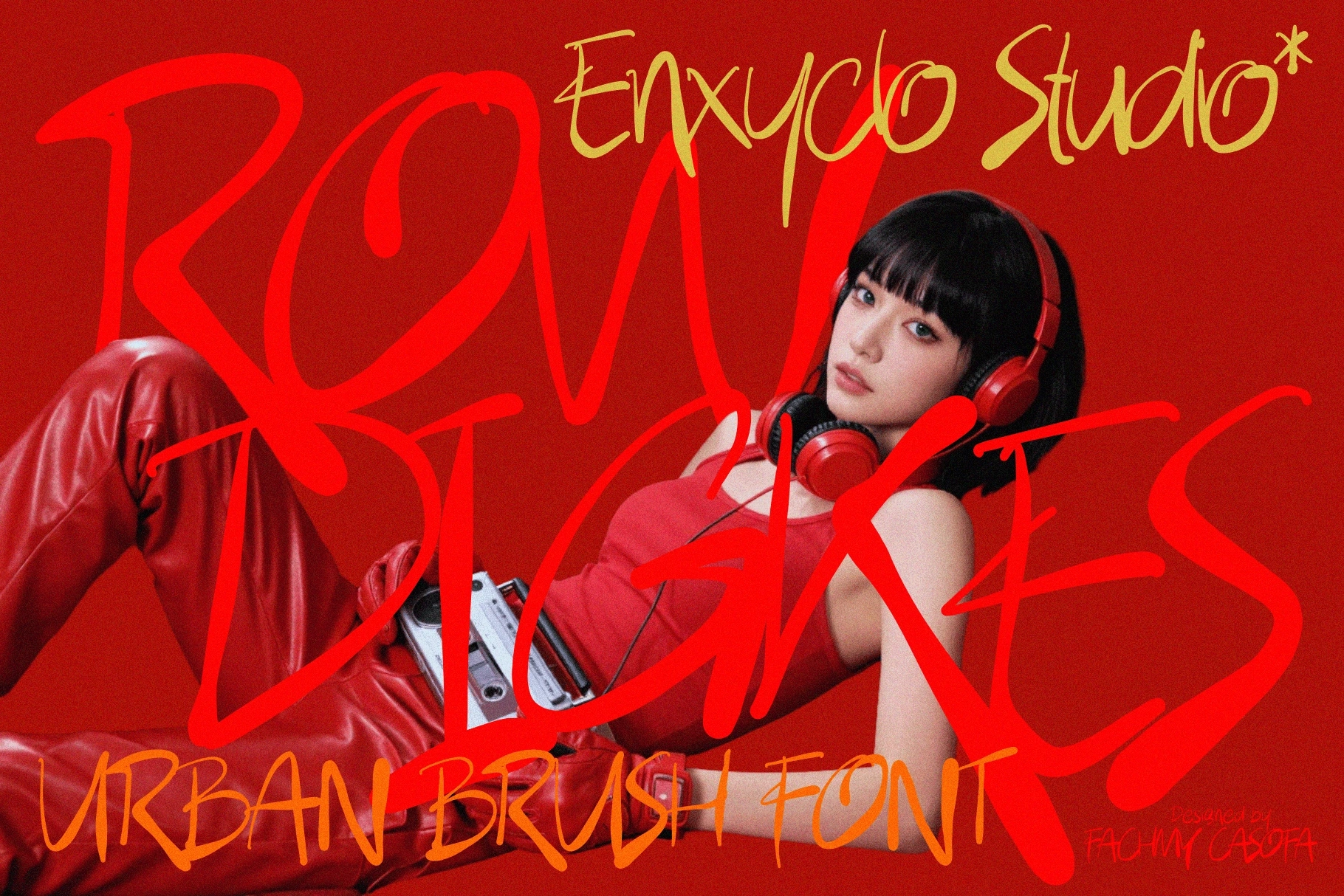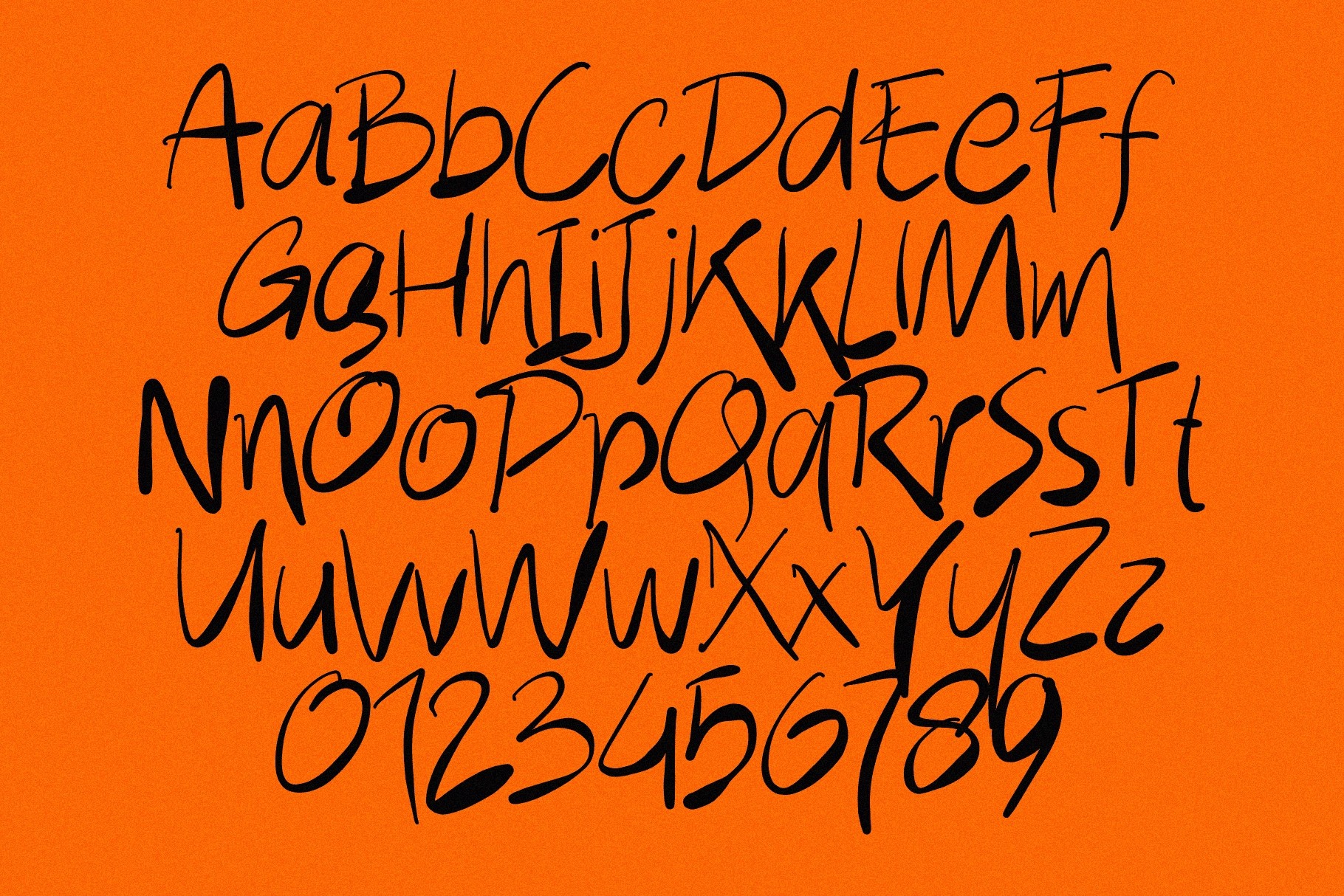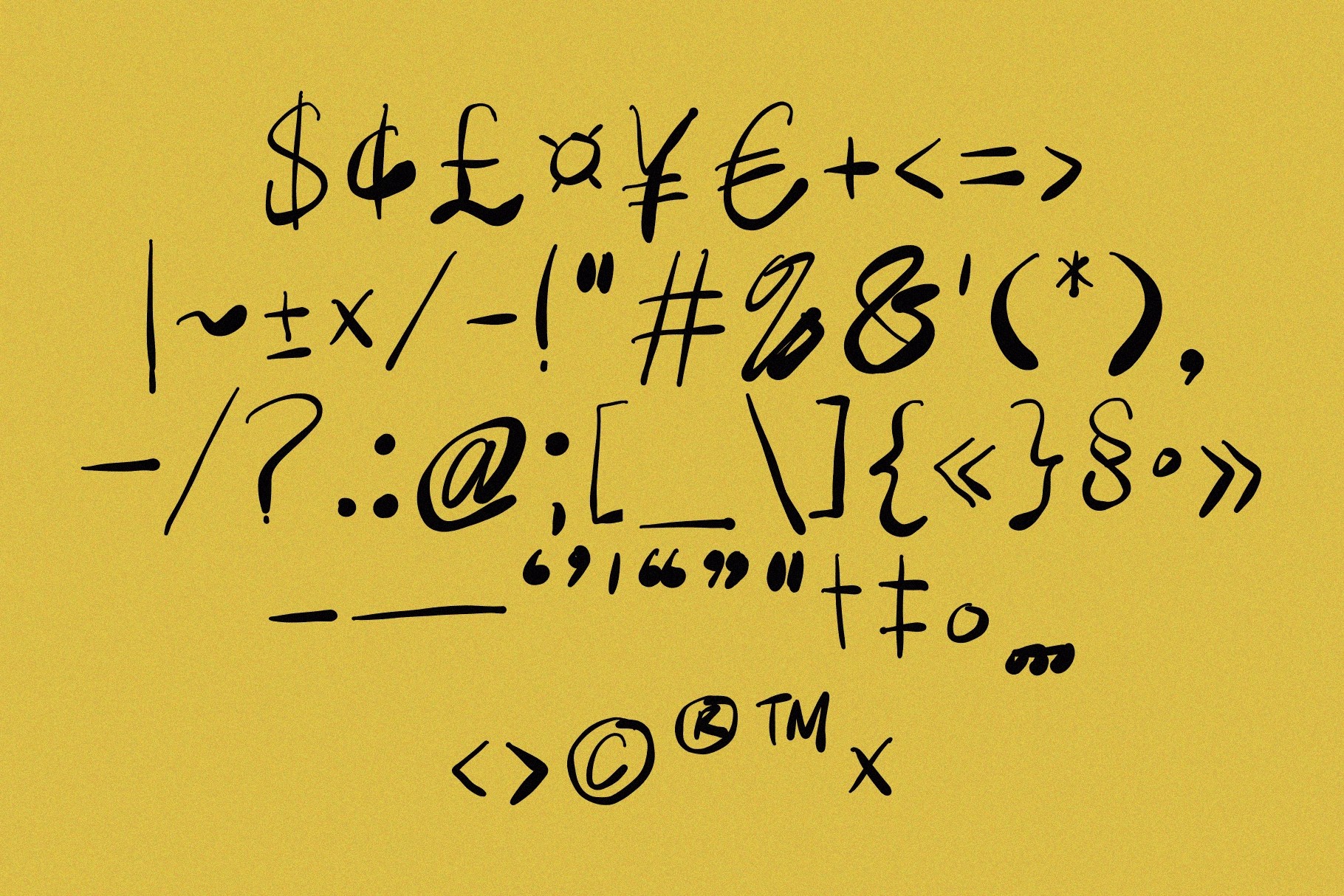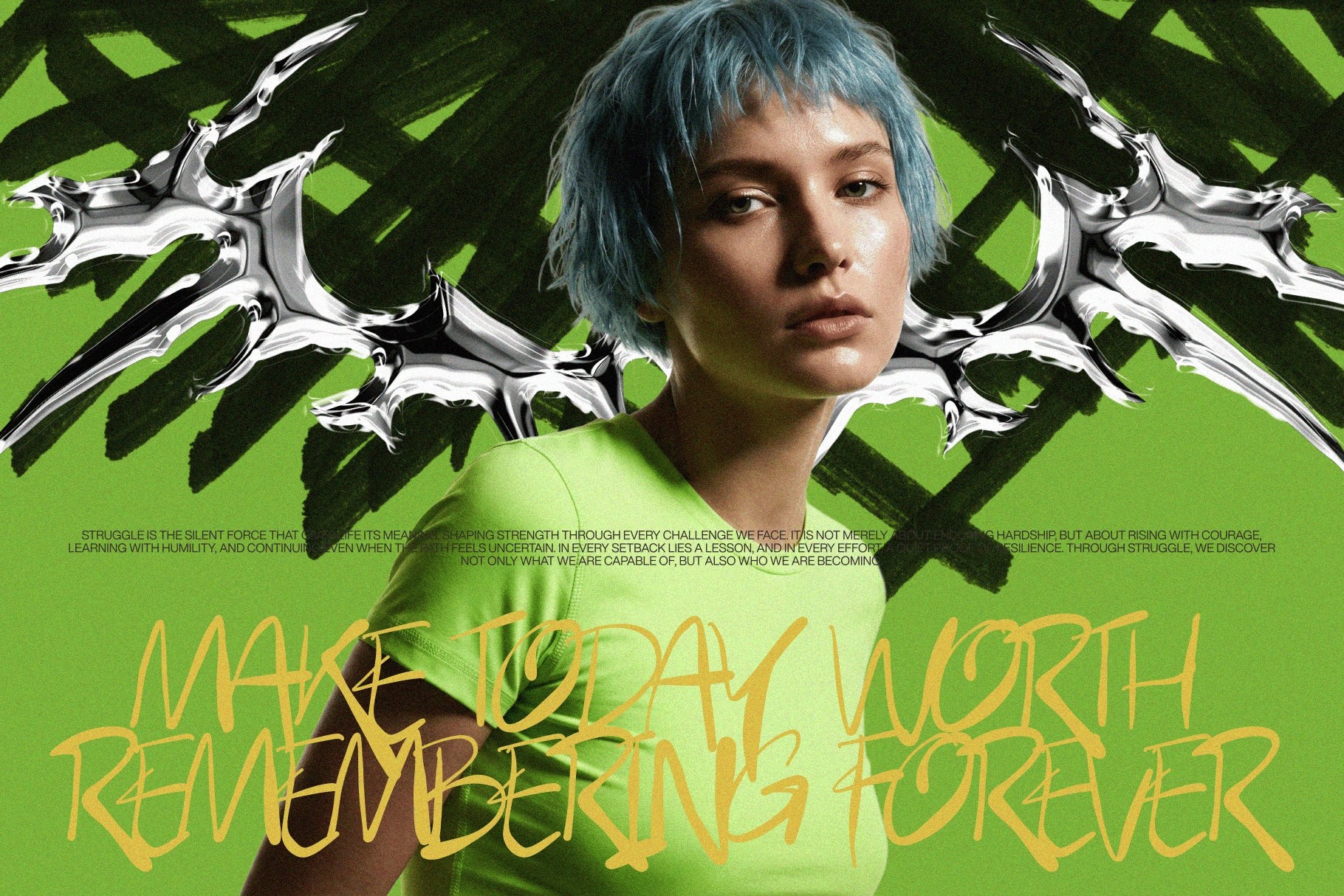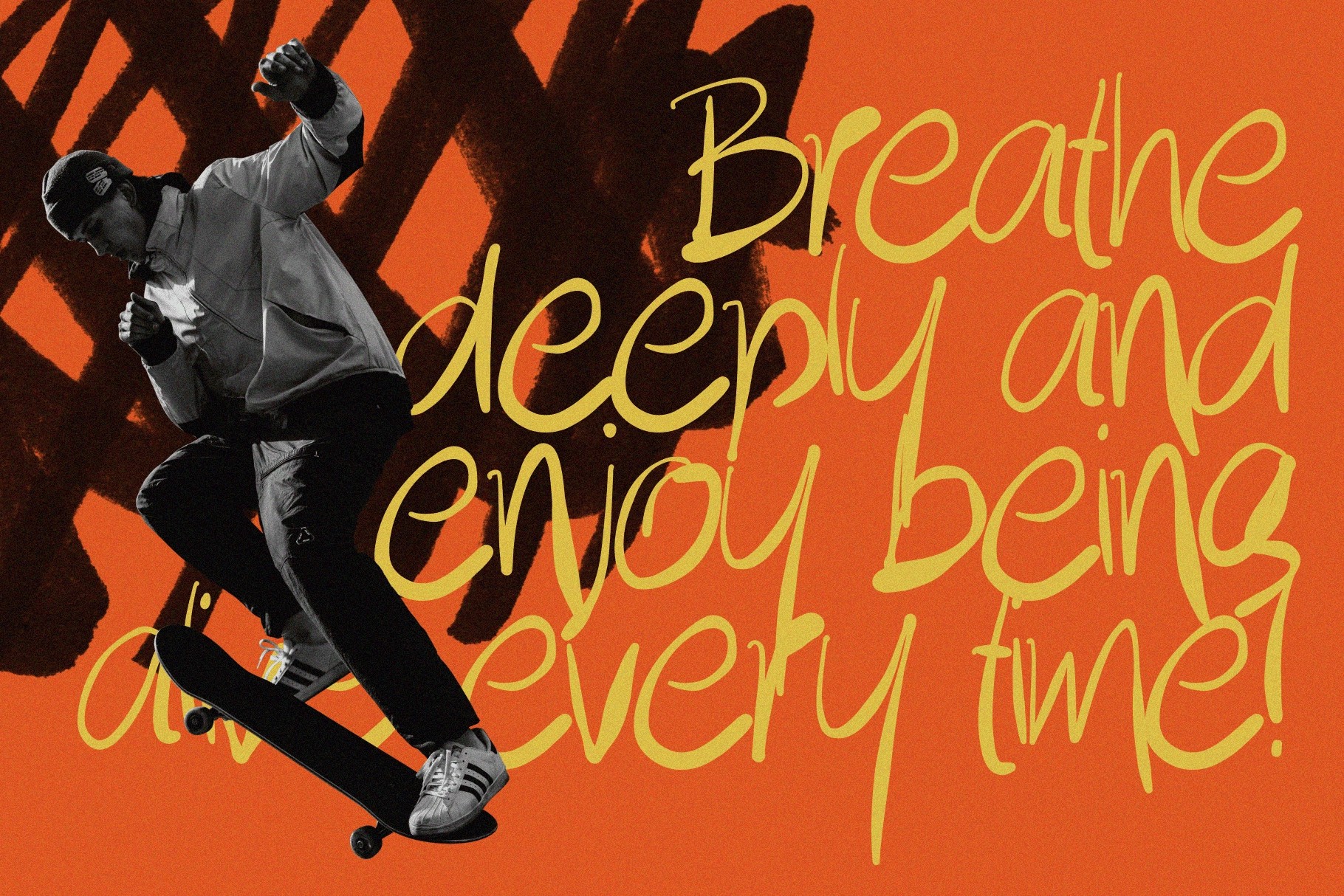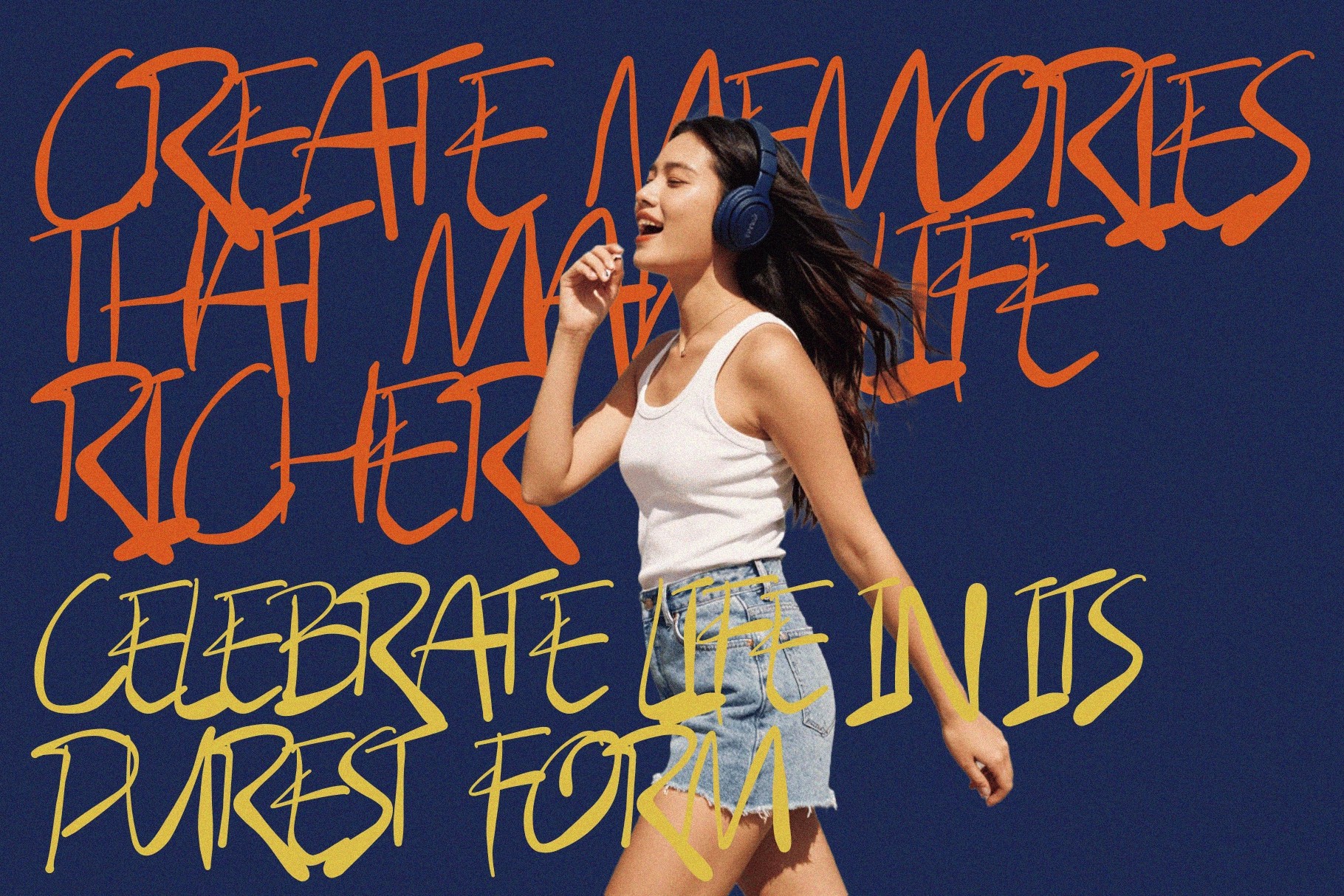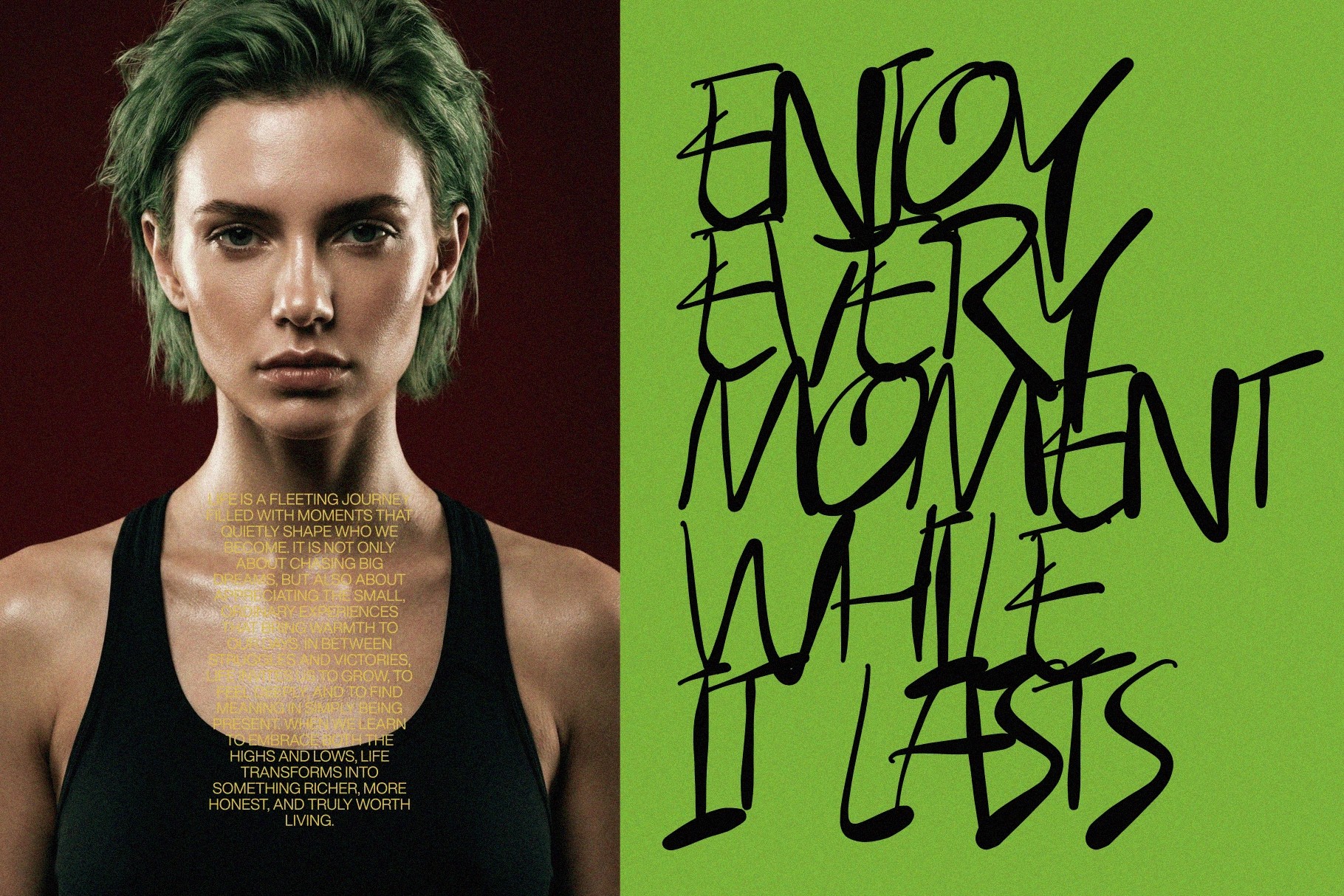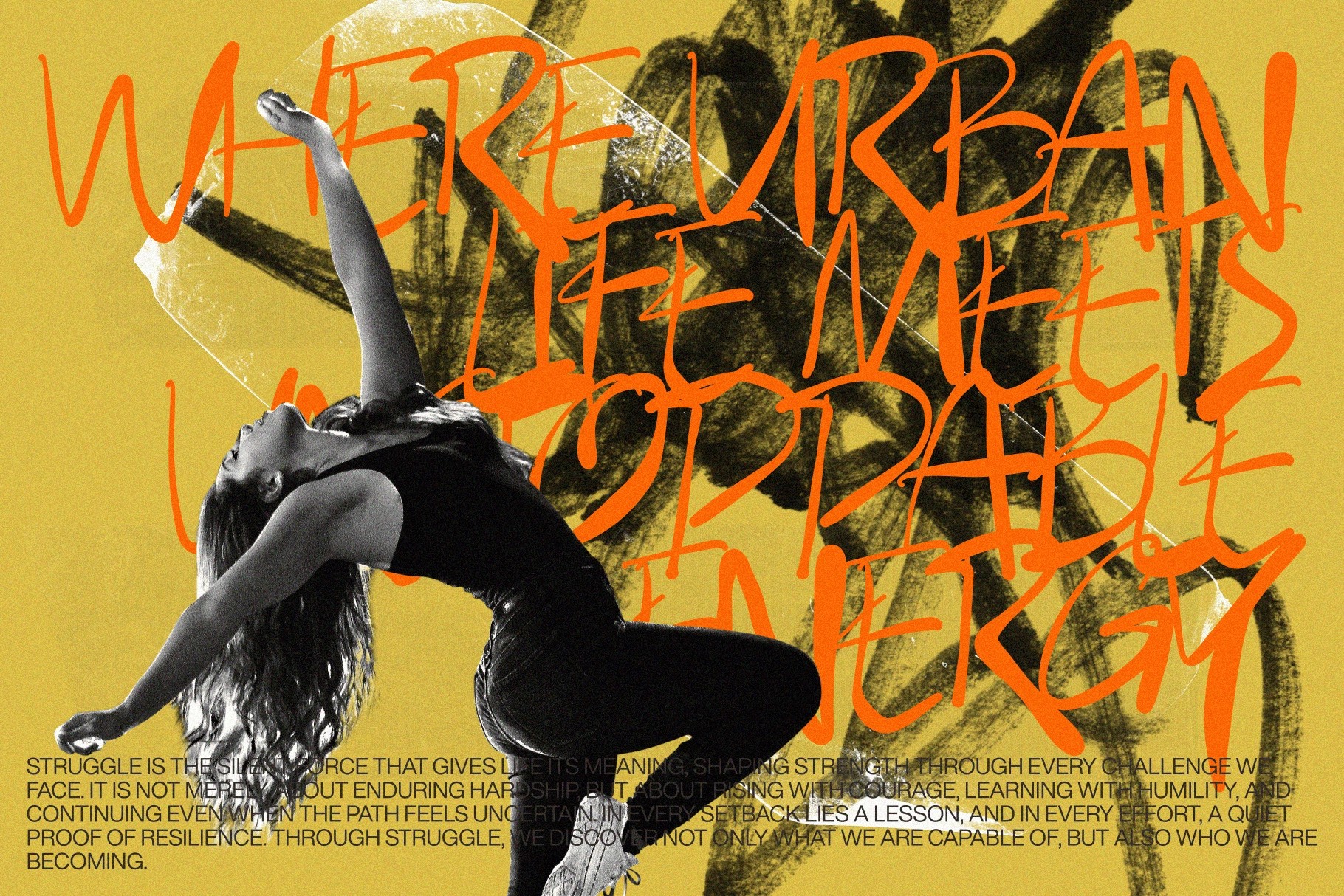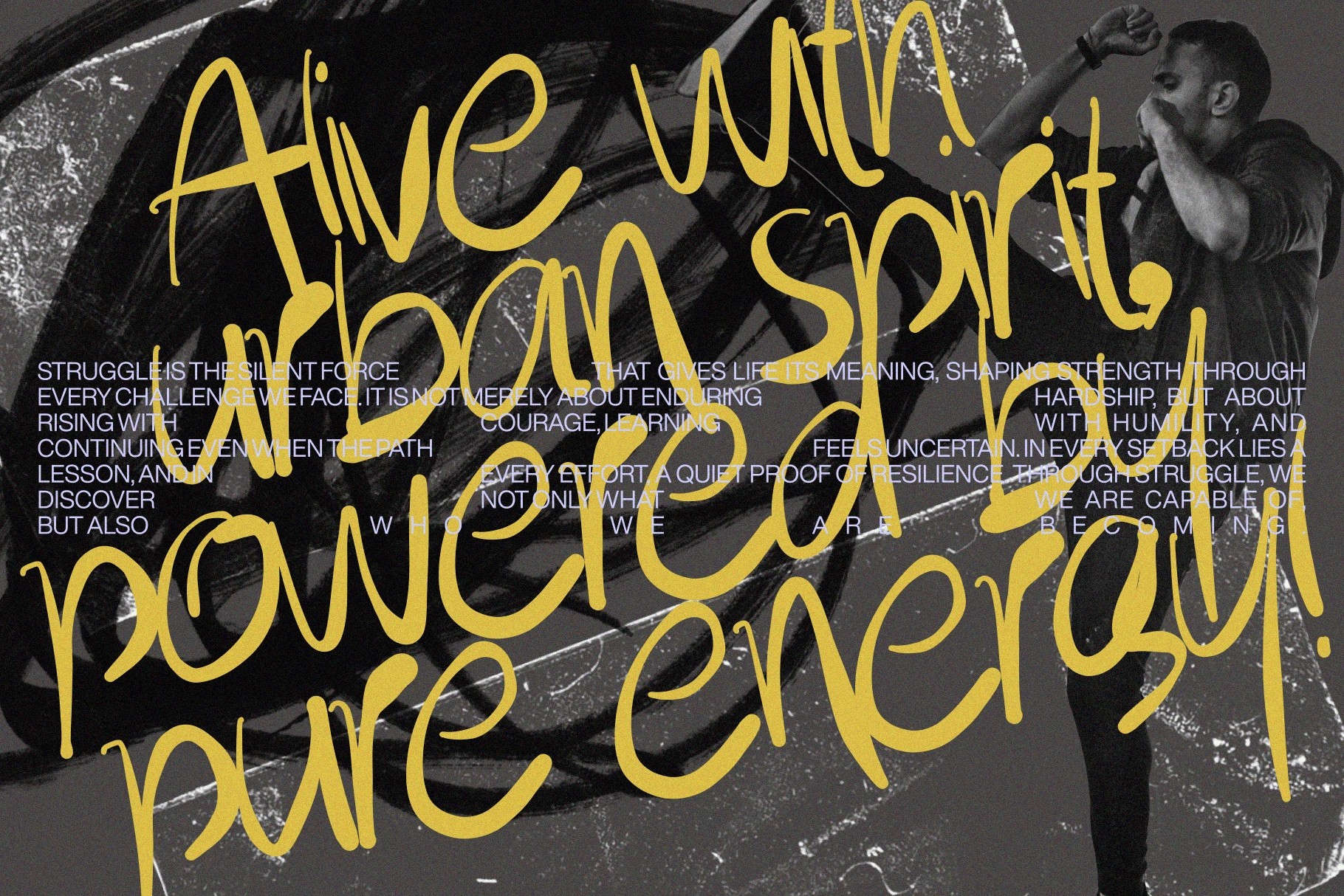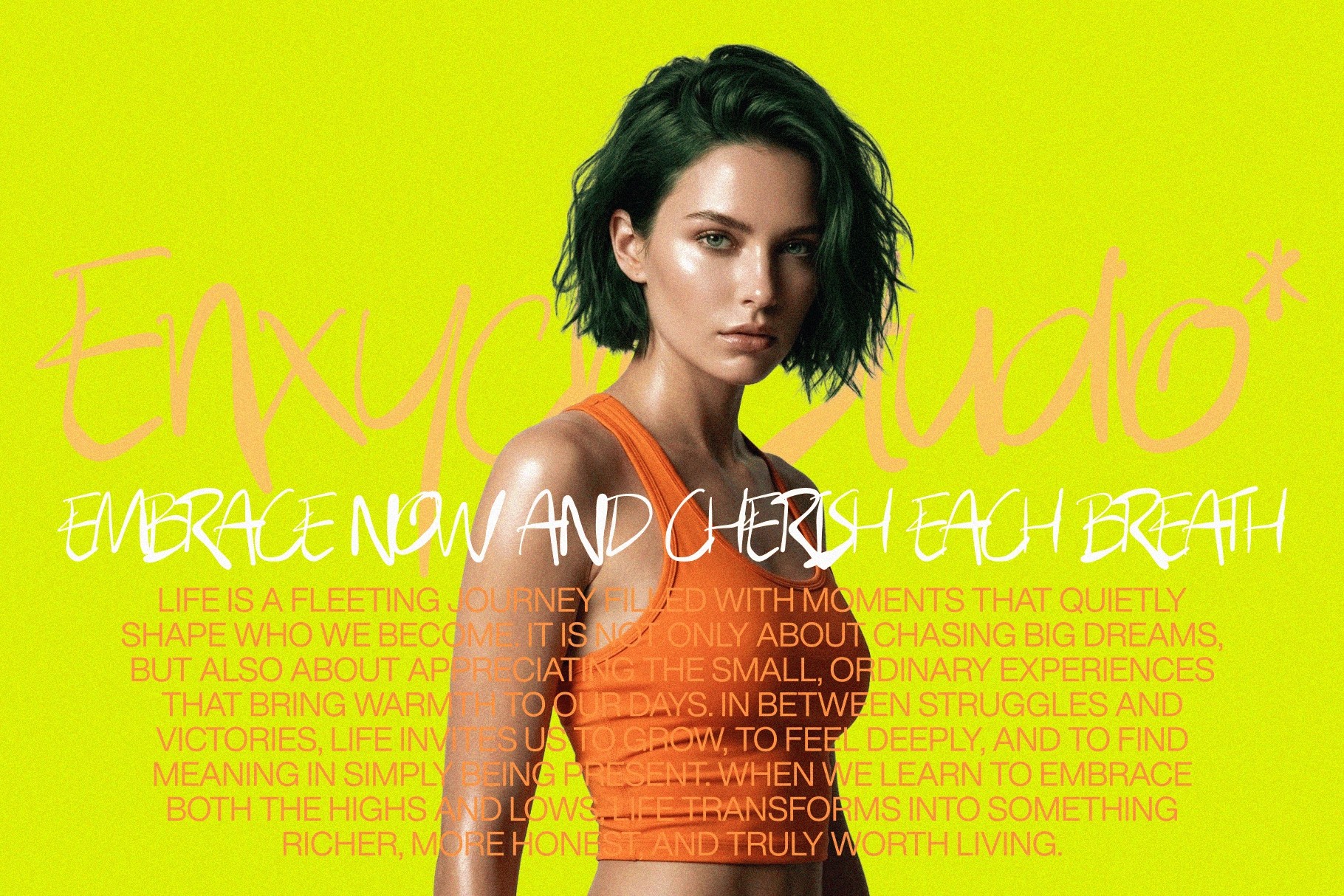
ROWDIGKES — Urban Brush Font
This urban brush typeface has loose handwritten forms, fast marker-like strokes, and a loud graffiti edge. The uneven rhythm, oversized shapes, and scratchy motion make it a strong fit for designs that need speed, noise, and a little public property energy.
ROWDIGKES works for album covers, band logos, festival posters, streetwear graphics, skate branding, event flyers, music visuals, sports promos, nightlife campaigns, YouTube thumbnails, social media announcements, zines, and more. It has the restless look of letters written quickly, loudly, and possibly before security arrived.
• Currency symbols
• Special characters